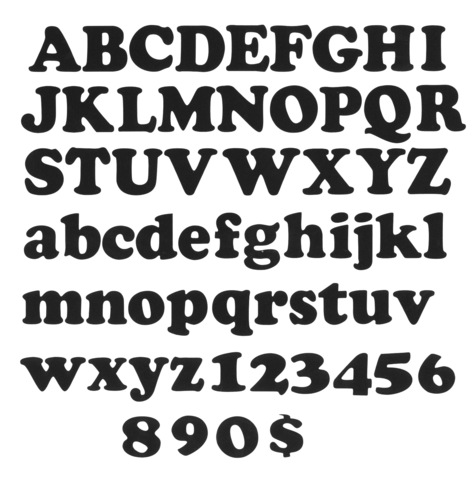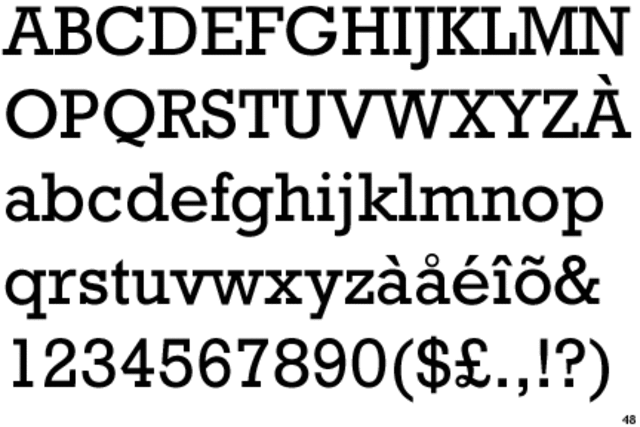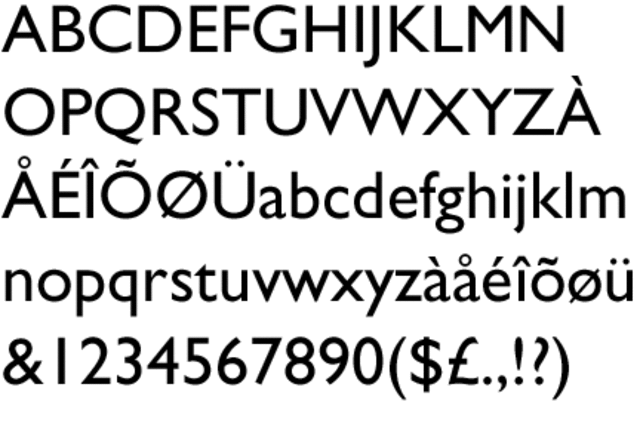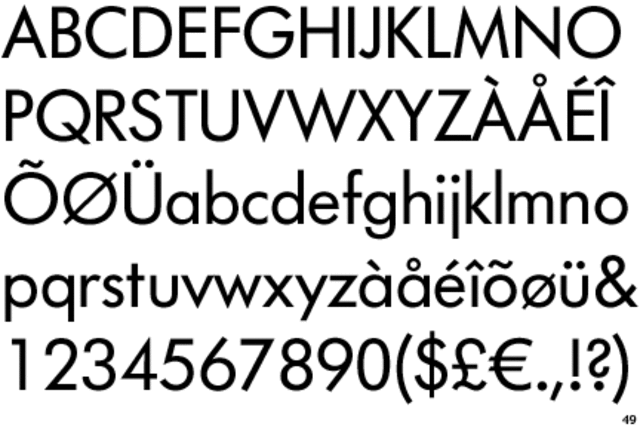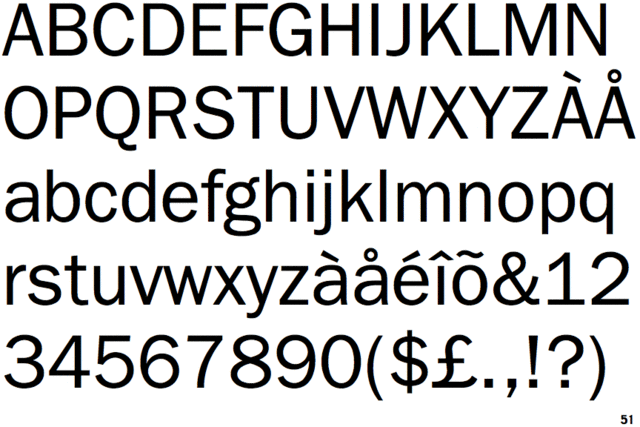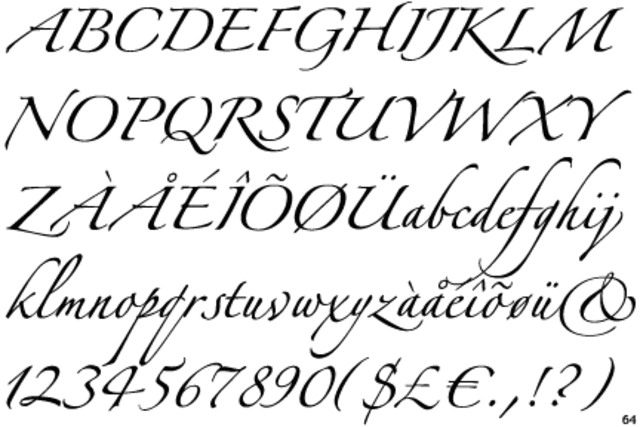
Garamond is a group of many old-style serif typefaces, designed by Parisian craftsman Claude Garamond, even though his name was written as 'Garamont'. He worked as an engraver of punches, the masters used to stamp matrices. Very similar to the Caslon typeface he had the tradition of what is now called old-style serif letter design, which had a similar structure that looked like handwriting with a pen but with a slightly more structured and upright design.
Caslon is a serif typeface created by William Caslon (1692 - 1766). He worked as an engraver of punches, the masters used to stamp the moulds or matrices used to cast metal type. He worked in the tradition of what is now called old-style serif letter design, that produced letters with a structure that looked very similar to handwriting with a pen.
Bodoni is the name given to the serif typefaces first designed by Giambattista Bodoni (1740–1813). His typefaces are classified as Didone or modern. He followed the ideas of John Baskerville, as found in the printing type Baskerville—increased stroke contrast reflecting developing printing technology and a more vertical axis—but he took them to a more extreme conclusion.
Fette Fraktur is a blackletter typeface of the sub-classification Fraktur designed by the German punchcutter Johann Christian Bauer (1802–1867) in 1850. Fette Fraktur (German for bold Fraktur) is based on the Fraktur type of blackletter faces. This heavy nineteenth century version was developed more for advertising than text, similar to the extremely heavy advertising versions of Didone classification faces like Poster Bodoni, Thorogood, and Fat Face.
Franklin Gothic and its related faces are realist sans-serif typefaces originated by Morris Fuller Benton (1872–1948) in 1902. “Gothic” was a contemporary term (now little-used except to describe period designs) meaning sans-serif. Franklin Gothic has been used in many advertisements and headlines in newspapers. The typeface continues to maintain a high profile, appearing in a variety of media from books to billboards
Cooper Black is a heavily weighted, display serif typeface designed by Oswald Bruce Cooper in 1921 and released by the Barnhart Brothers & Spindler type foundry in 1922. The typeface is drawn as an extra bold weight of Cooper Old Style.
Futura is a geometric sans-serif typeface designed in 1927 by Paul Renner. It was designed as a contribution on the New Frankfurt-project. It is based on geometric shapes that became representative of visual elements of the Bauhaus design style of 1919–33. It was commissioned as a typeface by the Bauer Type Foundry, in reaction to Ludwig & Mayer's seminal Erbar of 1922.
Gill Sans is a sans-serif typeface designed by Eric Gill and released by the British branch of Monotype from 1928 onwards. Gill Sans takes inspiration from the calligrapher and lettering artist Edward Johnston's 1916 "Underground Alphabet", the corporate font of London Underground, now (although not at the time) most often simply called the "Johnston" typeface.
Rockwell is a slab serif typeface designed by the Monotype Corporation and released in 1934. The project was supervised by Monotype's engineering manager Frank Hinman. Because of its monoweighted stroke, Rockwell is used primarily for display or small-size use rather than lengthy bodies of body text. Rockwell is based on an earlier, more condensed slab serif design called Litho Antique
Zapfino is a calligraphic typeface designed for Linotype by typeface designer Hermann Zapf in 1998. It is based on an alphabet Zapf originally penned in 1944. As a font, it makes extensive use of ligatures and character variations.
Helvetica is a widely used sans-serif typeface developed in 1957 by Swiss typeface designer Max Miedinger with input from Eduard Hoffmann. Its use became a hallmark of the International Typographic Style that emerged from the work of Swiss designers in the 1950s and 60s, becoming one of the most popular typefaces of the 20th century.
Bell Centennial is a sans-serif typeface designed by Matthew Carter in the period 1975–78. The typeface was commissioned by AT&T as a proprietary type to replace their then current directory typeface Bell Gothic on the occasion of AT&T’s one hundredth anniversary. Carter was working for the Mergenthaler Linotype Company which now licenses the face for general public use.
Avenir is a proportional geometric sans-serif typeface designed by Adrian Frutiger in 1988 and released by Linotype GmbH, now a subsidiary of Monotype Corporation. The word avenir is French for "future". The font takes inspiration from the early geometric sans-serif typefaces Erbar (1922), designed by Jakob Erbar, and Futura (1927), designed by Paul Renner.
Trajan is an old style serif typeface designed in 1989 by Carol Twombly for Adobe. The design is based on the letterforms of capitalis monumentalis or Roman square capitals, as used for the inscription at the base of Trajan's Column from which the typeface takes its name.
Comic Sans MS, commonly referred to as Comic Sans, is a sans-serif casual script typeface designed by Vincent Connare and released in 1994 by Microsoft Corporation. It is a casual, non-connecting script inspired by comic book lettering, intended for use in informal documents and children's materials.